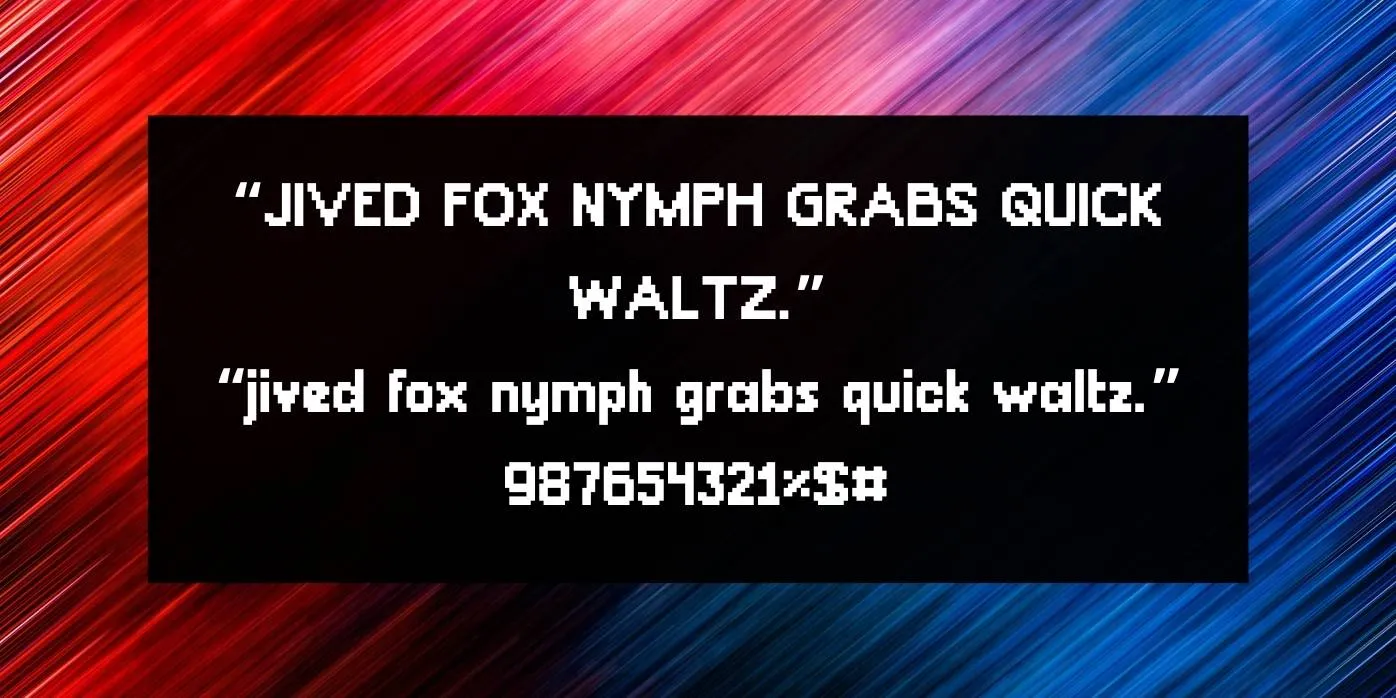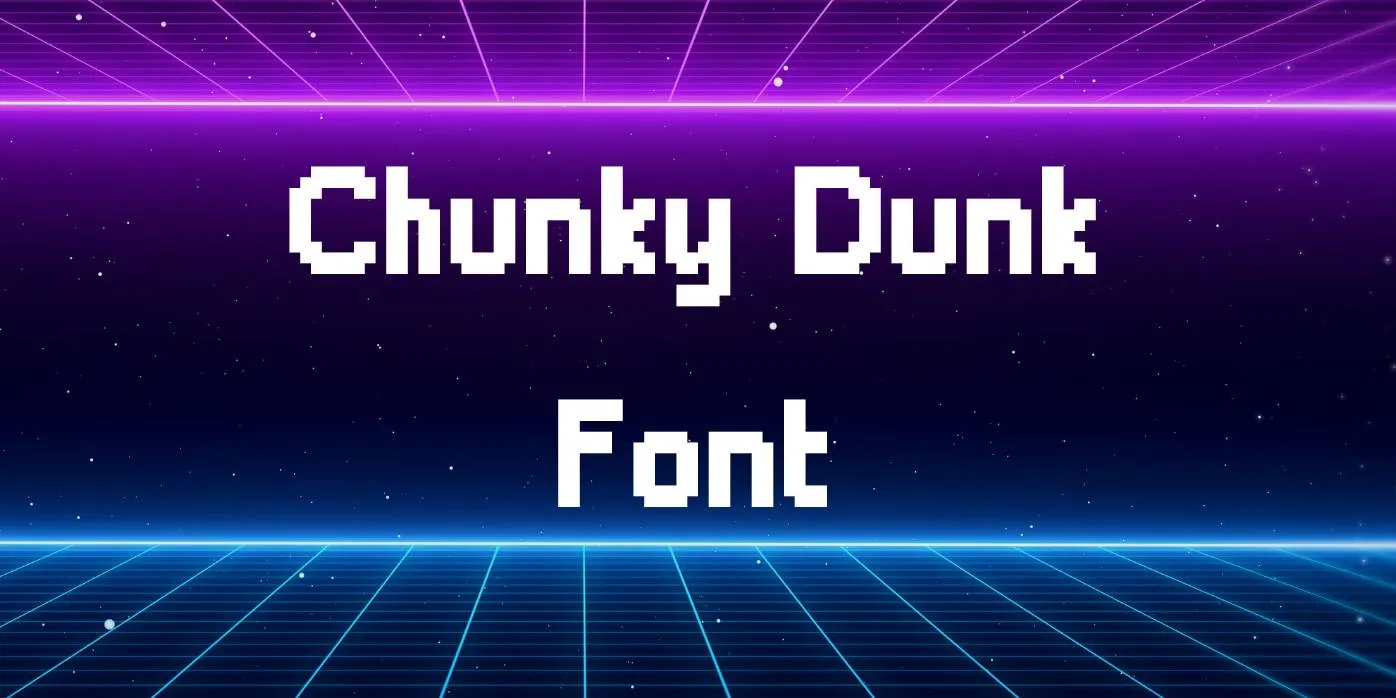
Chunky Dunk Font
Chunky Dunk Font is a retro-type texture that was designed by Hazel Abbiati. Chunky Dunk typeface is a fantastic texture that has attention-grabbing characters. It comes in only 3 styles includes Chunky Dunk regular, ChunkyDunkOutlin, and ChunkyDunkAlias. This typeface also generated through an online generator tool.